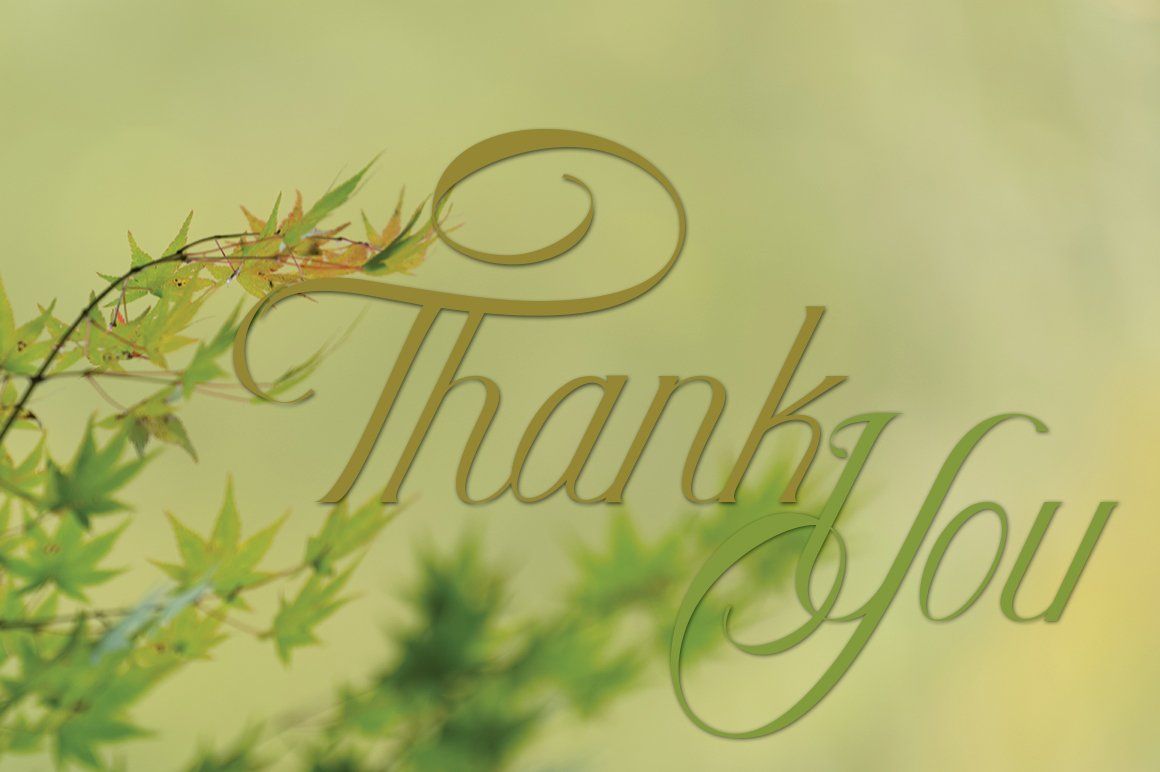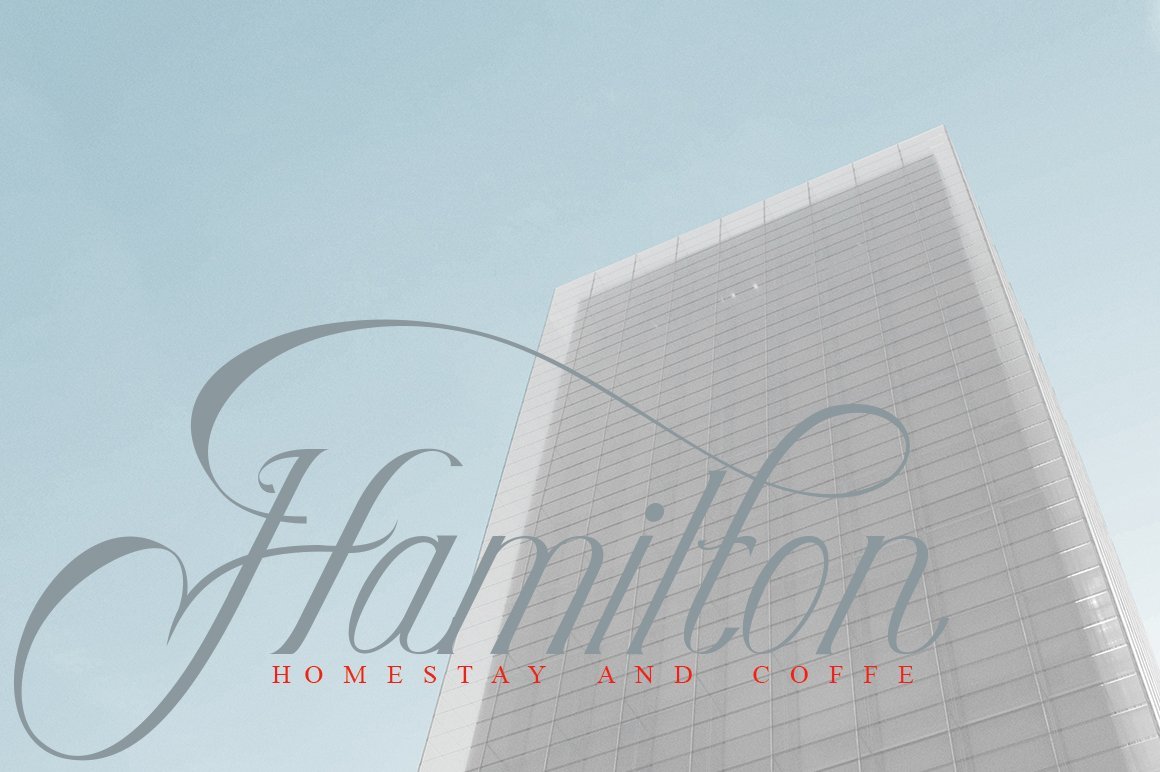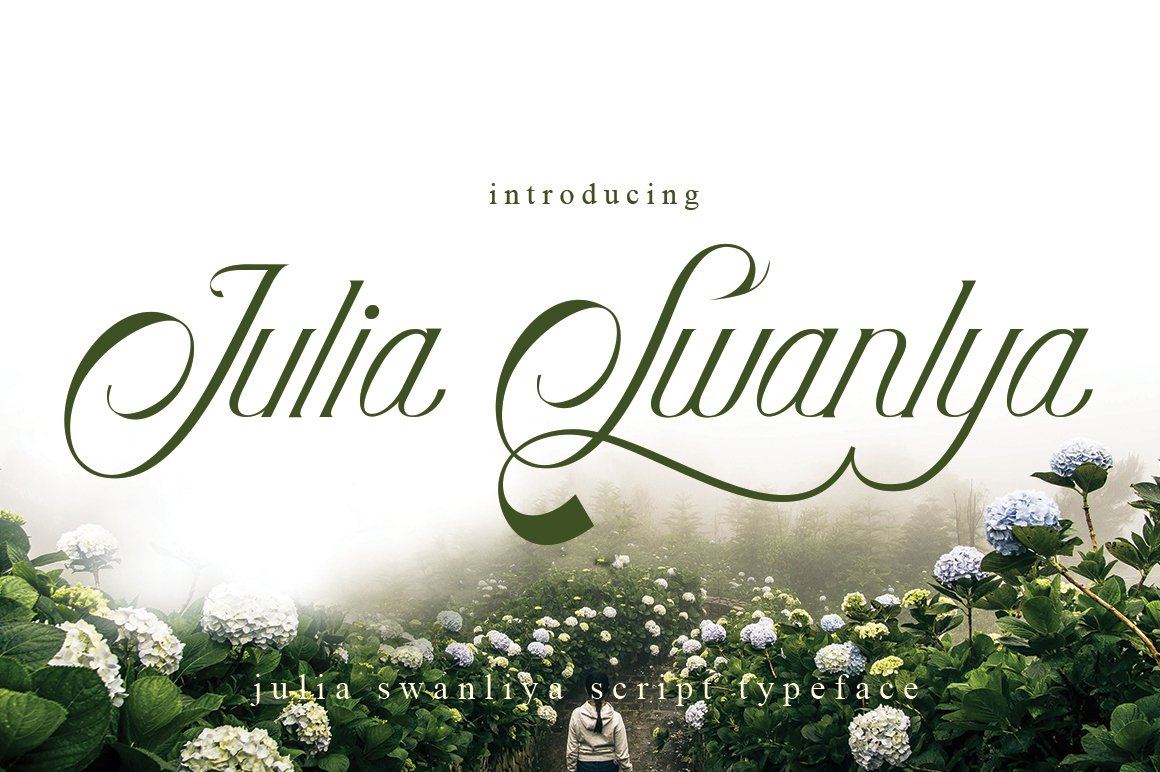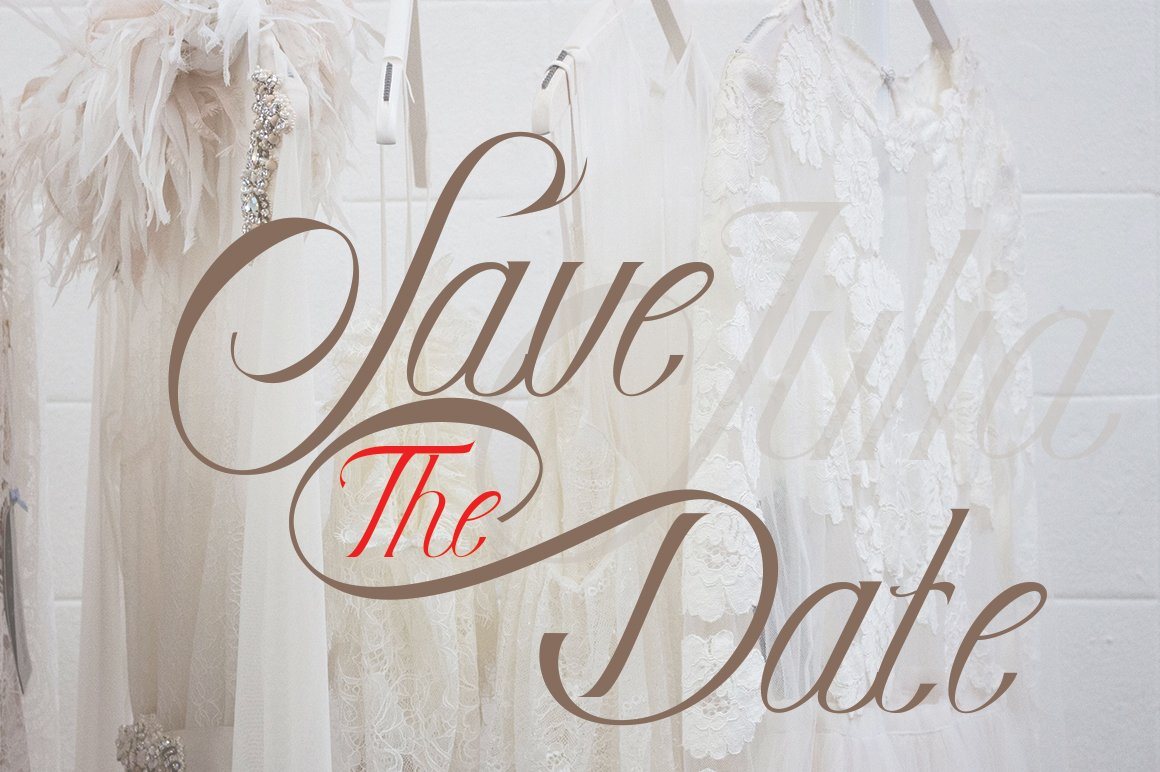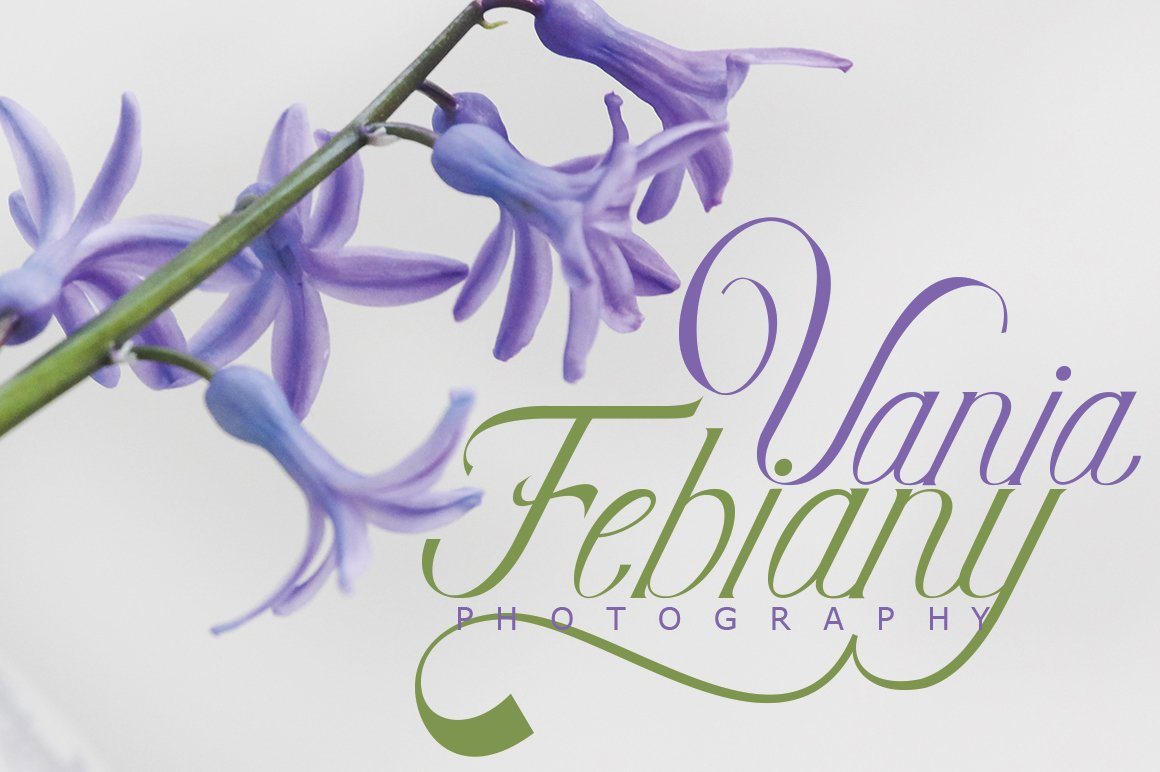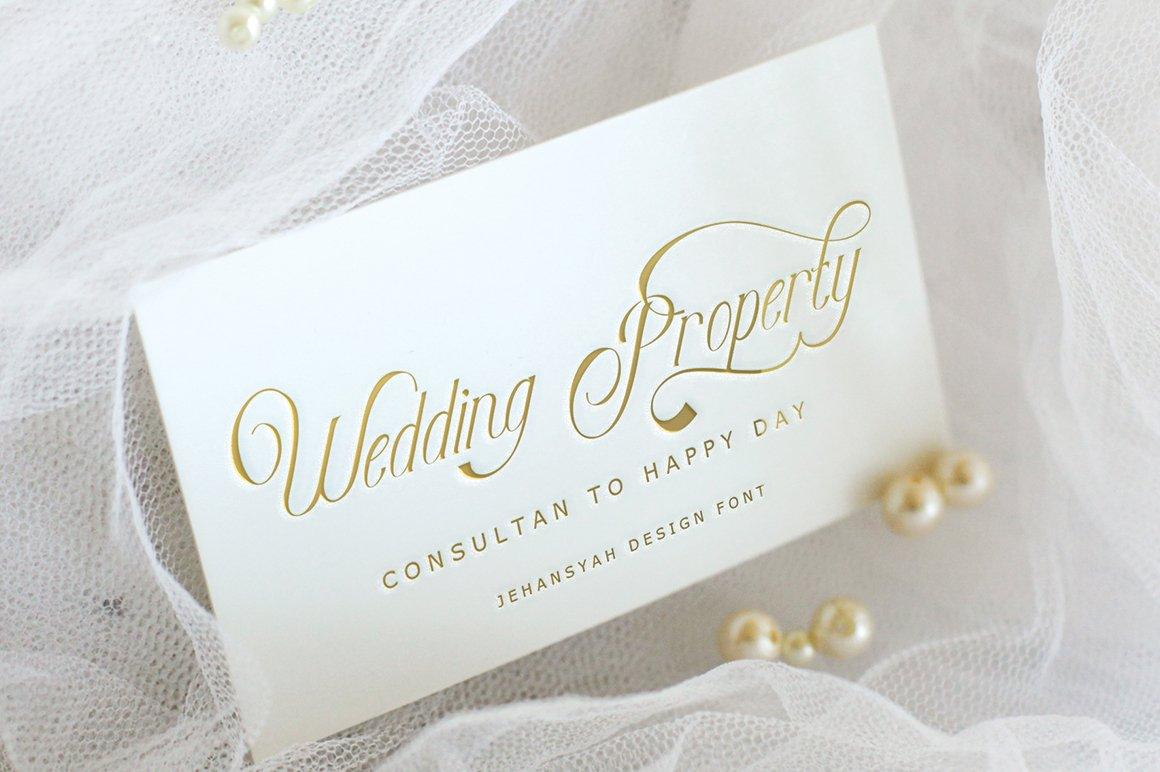
Julia Swanliya
About Julia Swanliya
Julia Swanliya is chaliggraphy script elegant include : Julia Swanliya ttf Julia Swanliya otf alternate.punctuation,numerick, and thank you very much Kind regard JH-creative